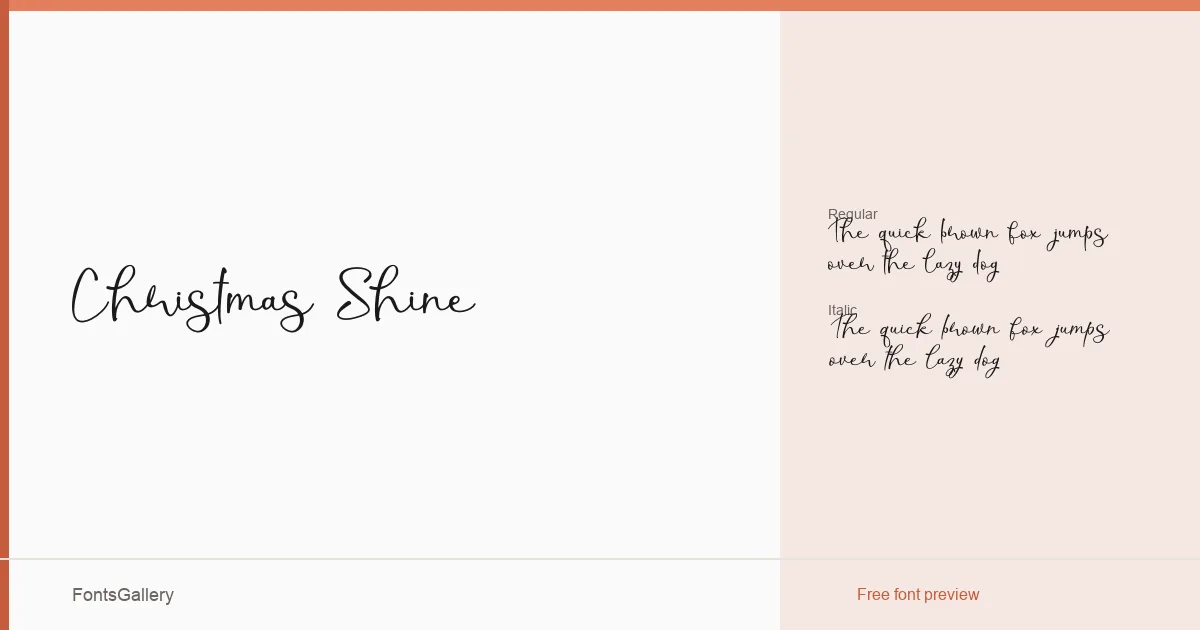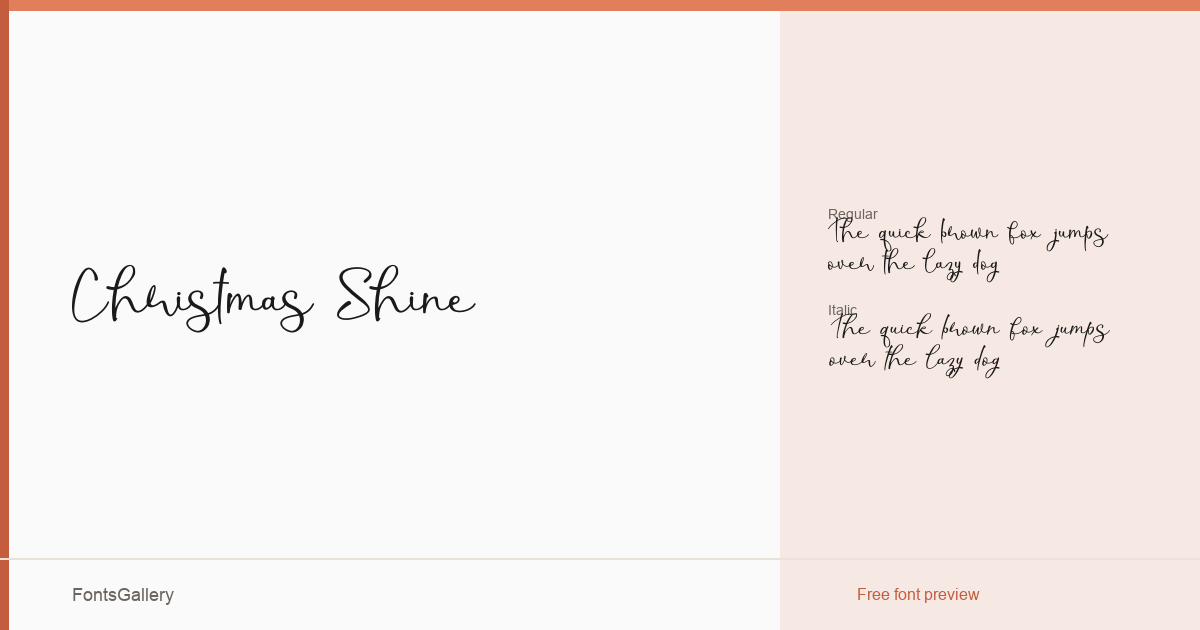
About Christmas Shine Font
Christmas Shine is a beautiful script font designed by Ahmad Afandi, crafted to bring elegance and warmth to seasonal and celebratory design projects. With its whimsical yet romantic character, it strikes a perfect balance between classic charm and modern versatility. This typeface is an ideal choice for designers looking to add a touch of festive sophistication to their work.
Christmas Shine features flowing, hand-lettered script letterforms that exude an elegant and romantic aesthetic rooted in classic calligraphic tradition. The graceful curves and whimsical flourishes give each character a lively, celebratory energy while maintaining a refined, timeless quality. These distinctive traits make the typeface feel both personal and polished across a wide range of applications.
Christmas Shine shines brightest in logo design, wedding materials, invitation cards, greeting cards, and social media graphics where an elegant, festive tone is desired. Its expressive script style lends itself beautifully to seasonal branding, event stationery, and heartfelt personal projects. For a stunning typographic combination, pair Christmas Shine with Aresink for a harmonious script-driven layout, or with Helvetica for a clean, modern contrast that lets the script take center stage.